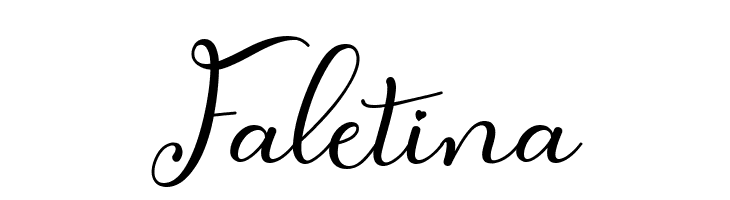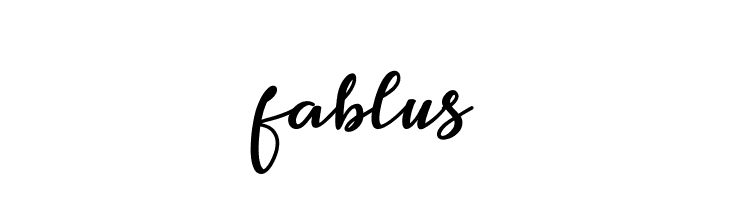
A lively and flowing script font with elegant, playful characteristics.
A dynamic and elegant script font with fluid, connected letterforms.
A bold, textured font with a handcrafted, artistic style.
A playful, bold handwritten font with smooth curves and consistent height.
An elegant, cursive font with flowing, interconnected letters and delicate strokes.
A graceful and elegant script font with flowing, interconnected characters.
A bold, dynamic script font with a fluid, handwritten style.
A modern, playful font with thin lines and rounded terminals.
A bold, flowing script font with a playful, handwritten style.
A dynamic, hand-drawn script font with bold, sweeping strokes.